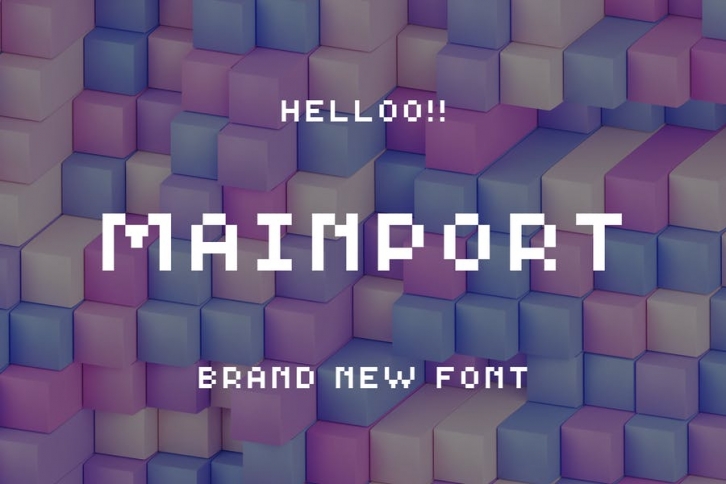
Mainport is display font with pixel style. Perfectly suited on print/screen; it can be used freely for logotypes, e-books and mobile applications and is especially food for headlines, banners, posters, web-sites, magazines, etc.